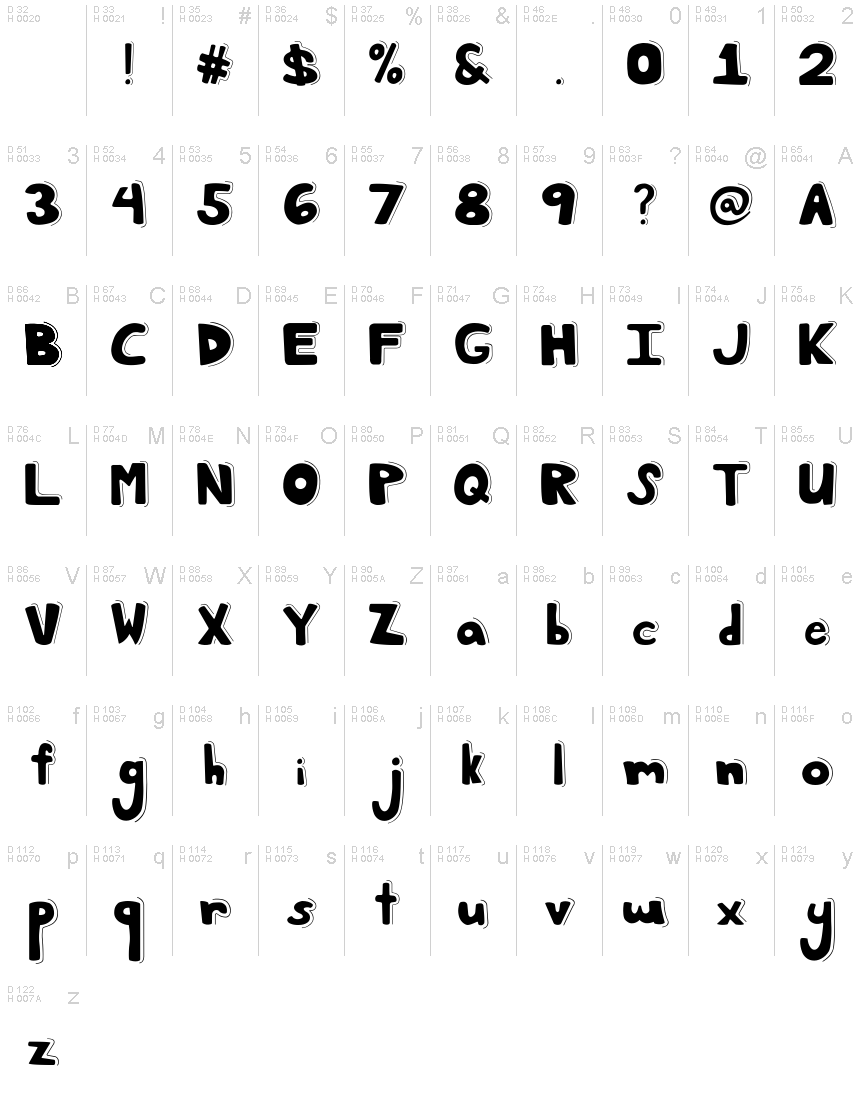
Stickers Regular
Stickers font, designed by Andreanna McKee, is a vibrant display typeface that radiates charm and playfulness. Its cartoonish style brings a sense of whimsy, making it perfect for eye-catching designs that invite engagement. With its exaggerated curves and playful swings, Stickers captures attention effortlessly, offering a delightful visual experience.
This font’s bold presence sets it apart, making it ideal for use in children’s literature, promotional materials, or any creative project that thrives on fun and creativity. Whether adorning product packaging or brightening up social media graphics, Stickers ensures that messages come alive with personality and flair. Embrace the joy of design with this unique typography that speaks to all ages!